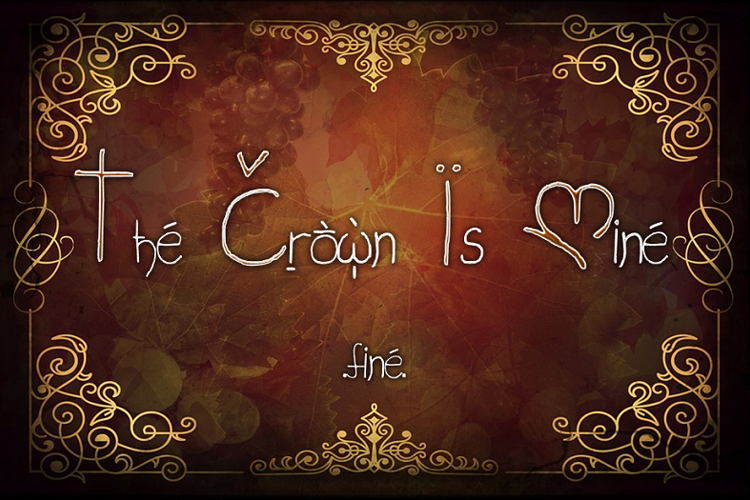
The Crown Is Mine _ Fine Font
About The Crown Is Mine _ Fine Font
This version of The Crown Is Mine *fine* has been written with a finer felt tip pen and the letters are closer together. Both lowercase and uppercase are included and some edits have also been made to the letters in general. This version is more 'precise' than the (regular) version of The Crown Is Mine. If you want to use this font commercially, it is 99c at https://www.creativefabrica.com/designer/shelley-2 Thank you! The palatial/ballet image background is by Pixel2013 at Pixabay. The decorative red/brown image background is by Steinchen at Pixabay.